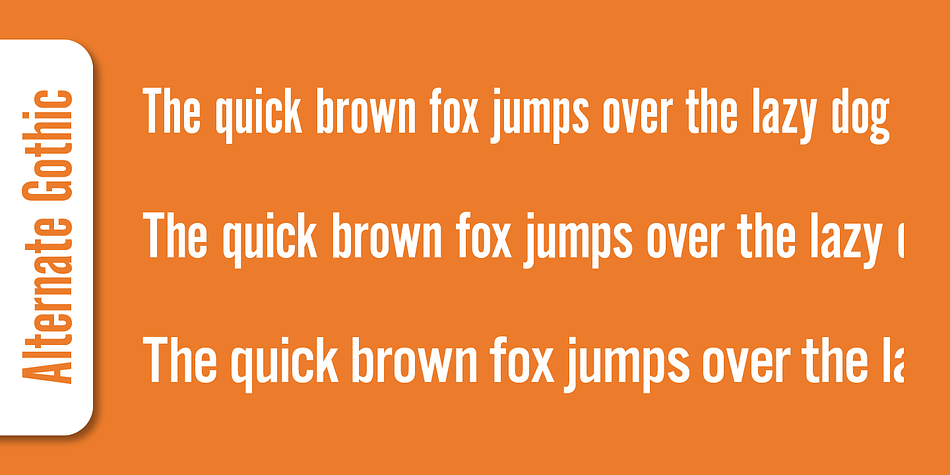
Alternate Gothic Pro
Alternate Gothic Pro is a display sans font family. This typeface has three styles and was published by SoftMaker.
Alternate Gothic Pro is one of the fonts of the SoftMaker font library.
Displaying the beauty and characteristics of the Alternate Gothic Pro font family.
Highlighting the Alternate Gothic Pro font family.
Alternate Gothic Pro font family sample image.
Alternate Gothic Pro is a a three font family.
Alternate Gothic Pro has impact at any size. Its letterforms are instantly familiar: it was used throughout the 20th century in newspapers, magazines, and advertising, providing “strong and effective display” in a compact space.